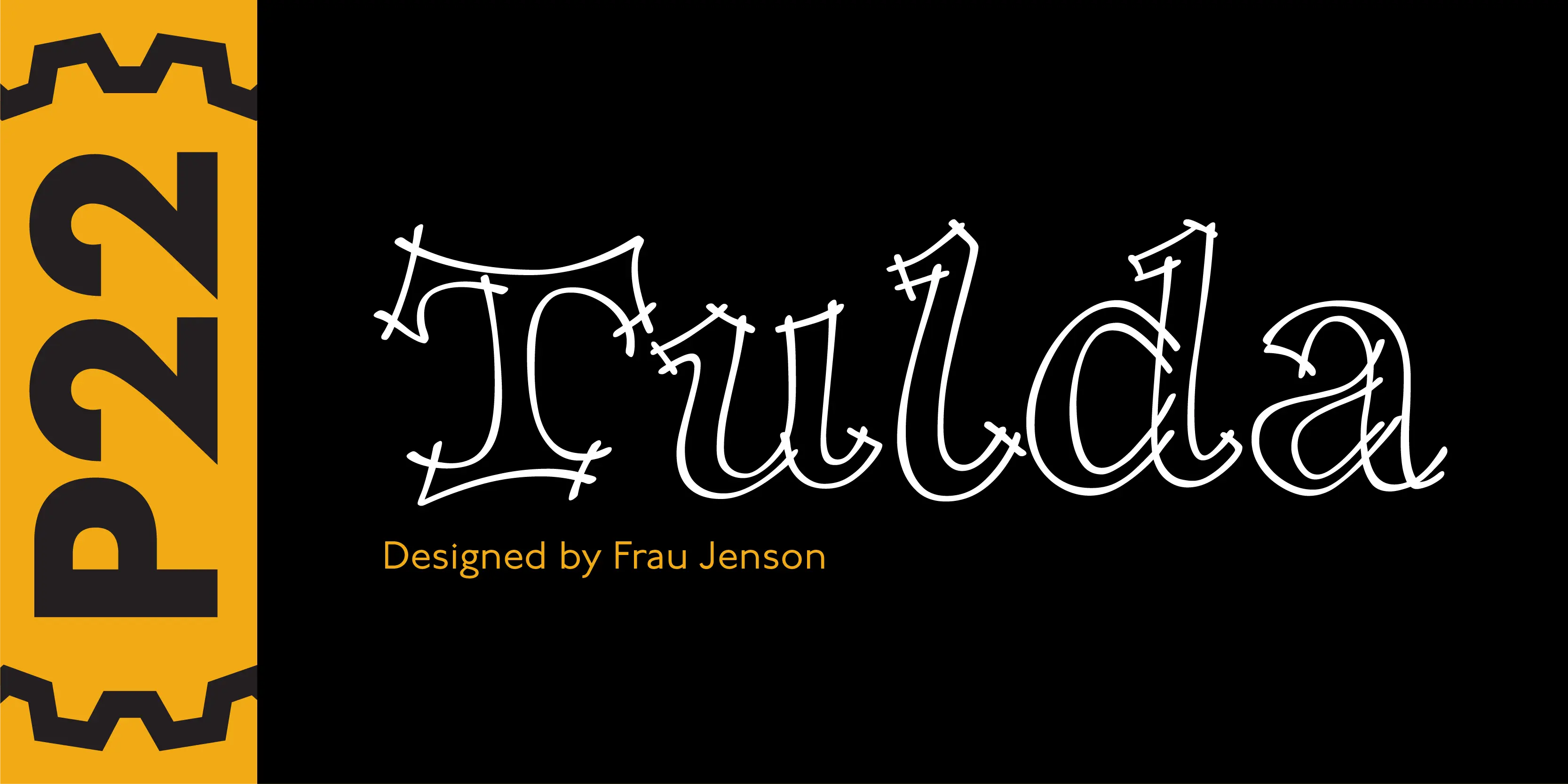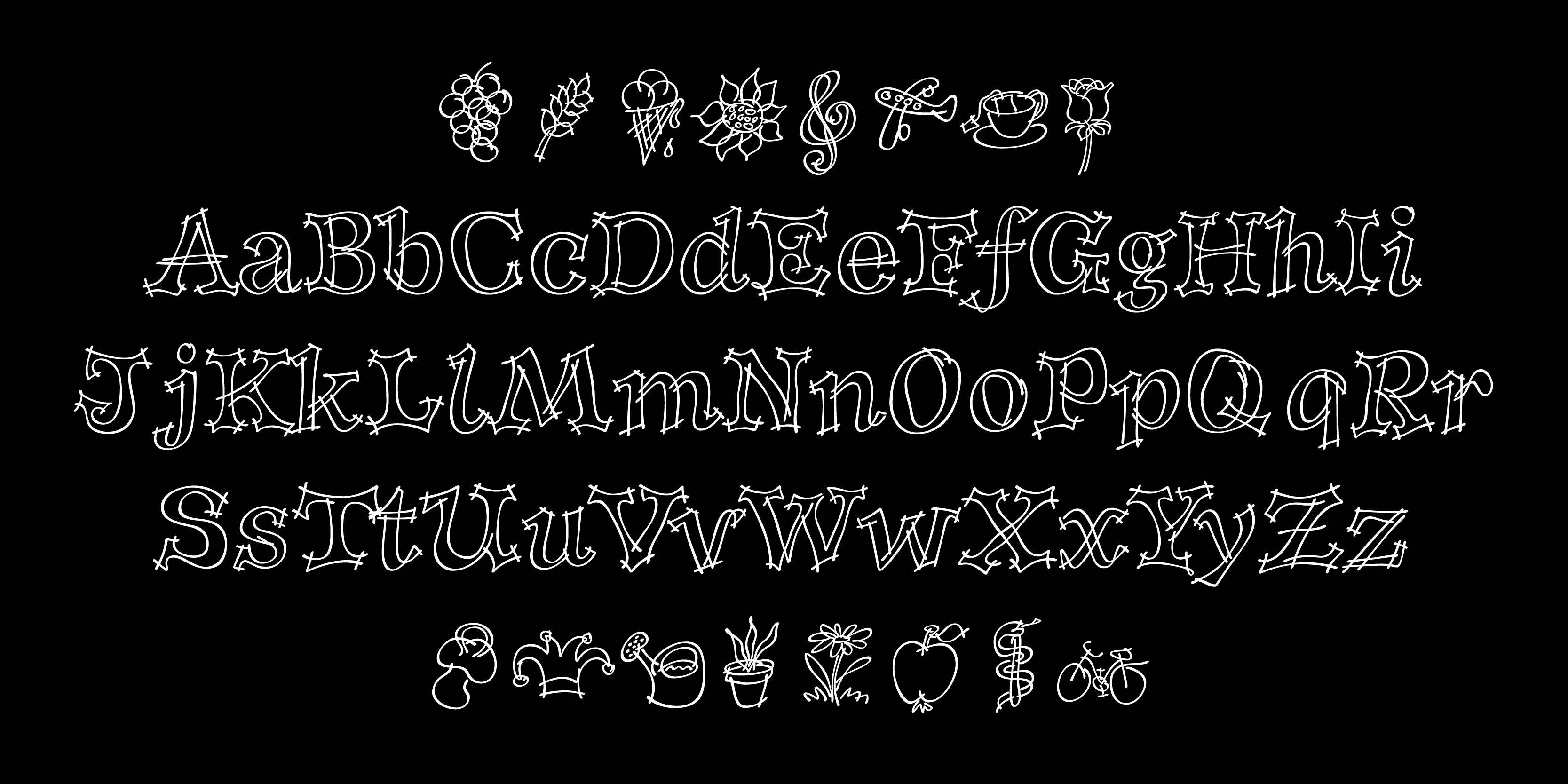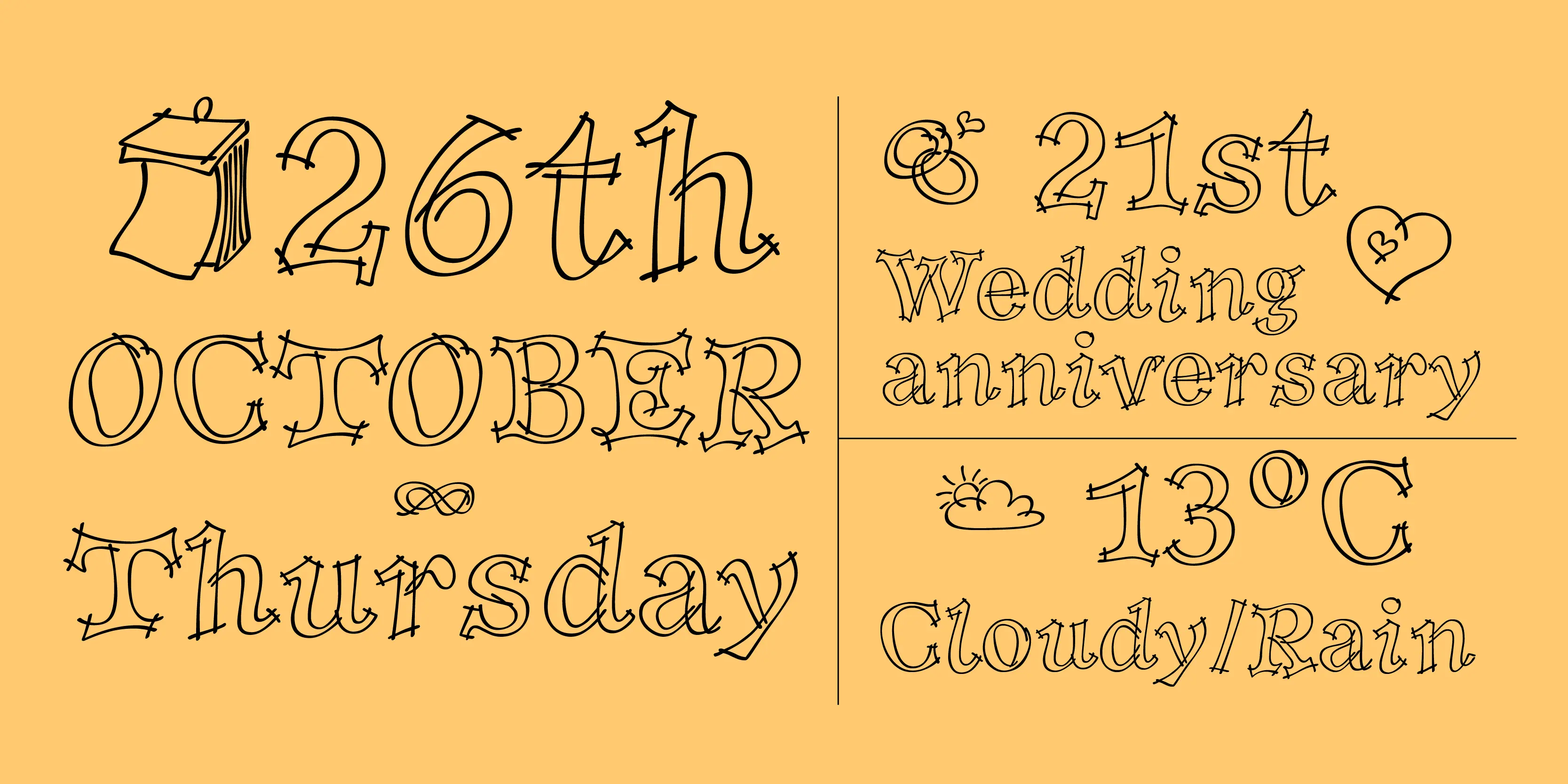
Tulda Font
Tulda
Tulda is a very lively lettering font originally drawn for a German calendar. The optional symbols feature festive renderings for just about any occasion. This font is also available as an OpenType font with over 500 characters.
• Contextual Swashes
• Fractions
• Lining Numerals
• Old Style Numerals
• Ornaments
• Proportional Numerals
• Superscript
• Tabular Numerals